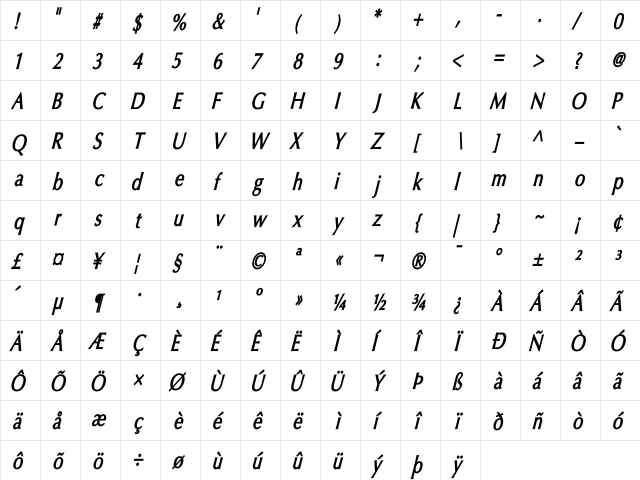
Oregon LDO Condensed Bold Oblique Font Preview
Design Context for Oregon LDO Condensed Typeface
Oregon LDO Condensed offers clean, dependable letterforms without strong stylistic allegiance, making it a practical choice for designers who need flexibility. Its italic angle brings a sense of urgency and motion to the letterforms. Its bold stroke weight gives it real presence on the page. The condensed width makes it efficient for tight spaces without sacrificing legibility.
Pro Tip: Try Oregon LDO Condensed for annotation and caption copy alongside an upright companion — the contrast in angle creates a dynamic but ordered typographic system.